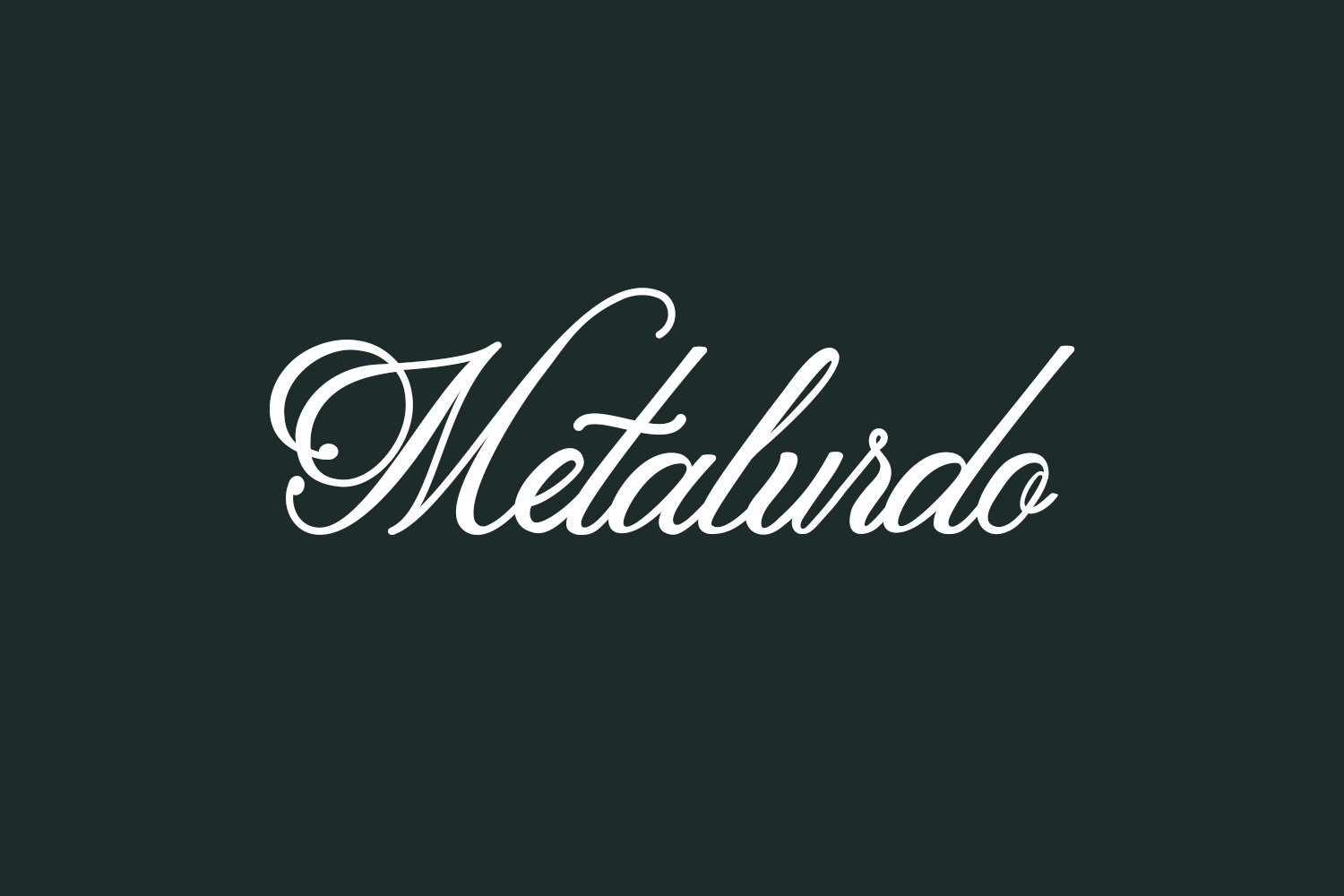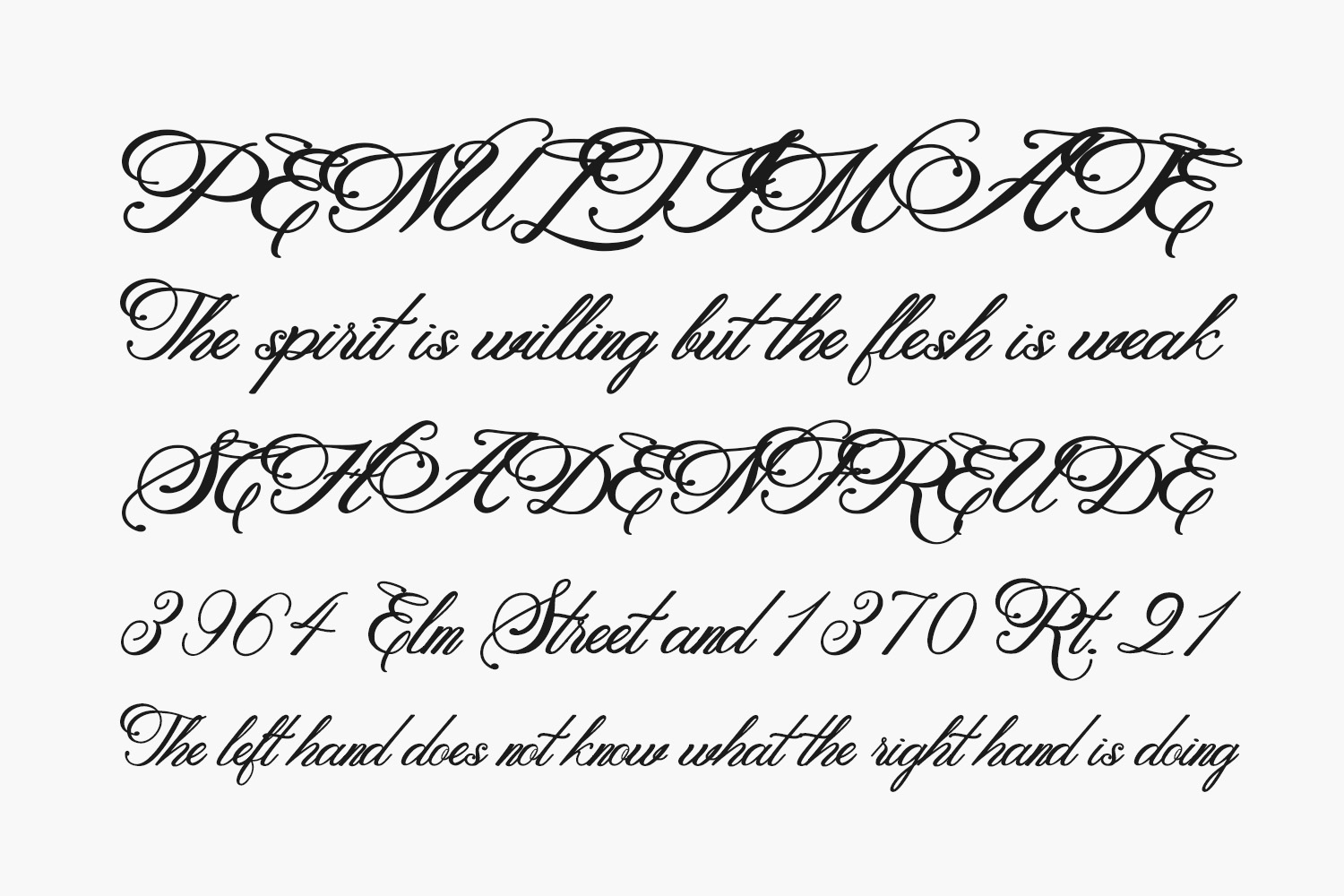
Metalurdo Free Font is an elegant handwritten calligraphy font with beautiful swashes. It’s perfect for many different projects such as logos & branding, invitation, stationery, wedding designs, social media posts, advertisements, product packaging, and much more. Metalurdo Free Font was designed by Arif Dwi and is free for personal use only. Please purchase the full version for commercial use.